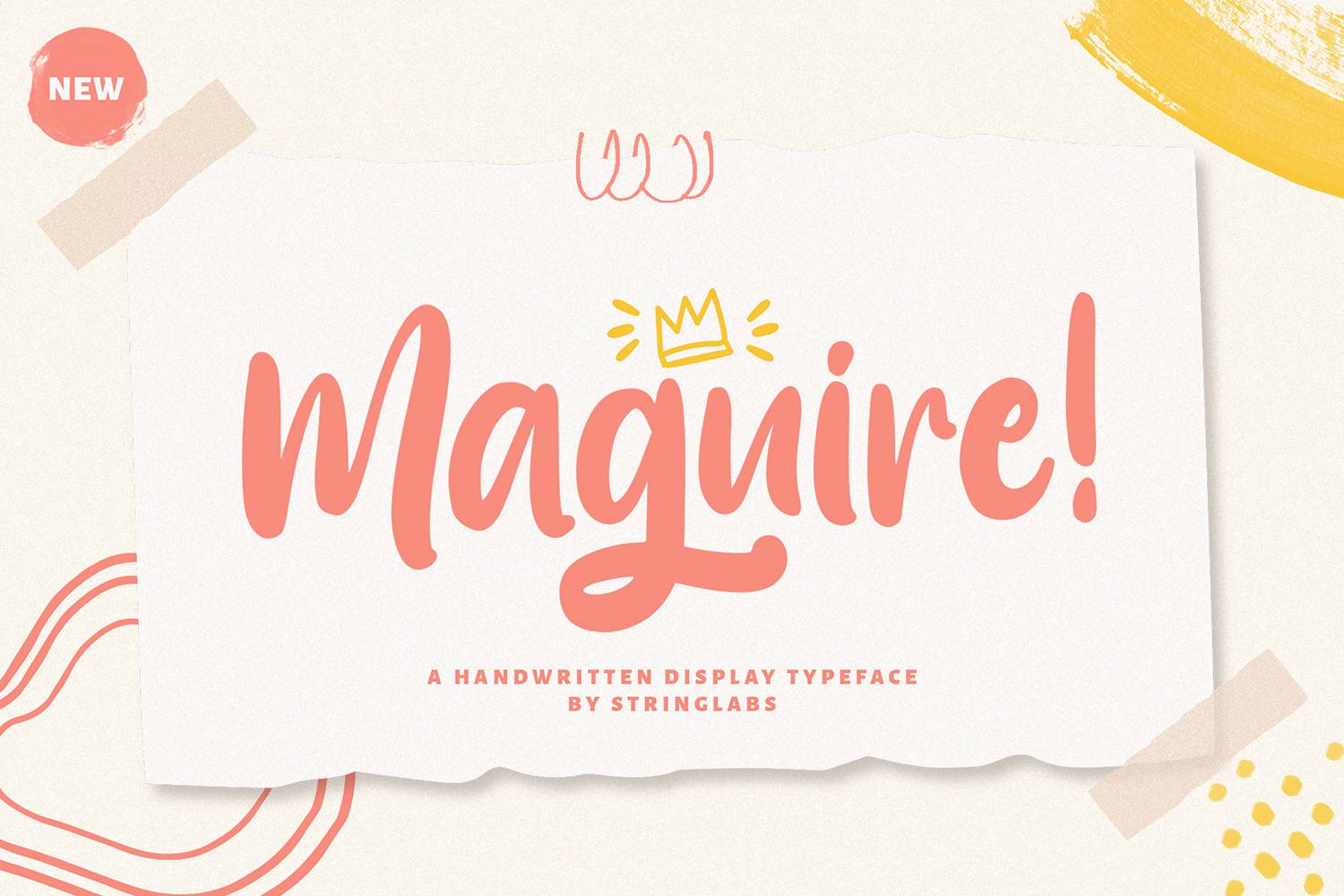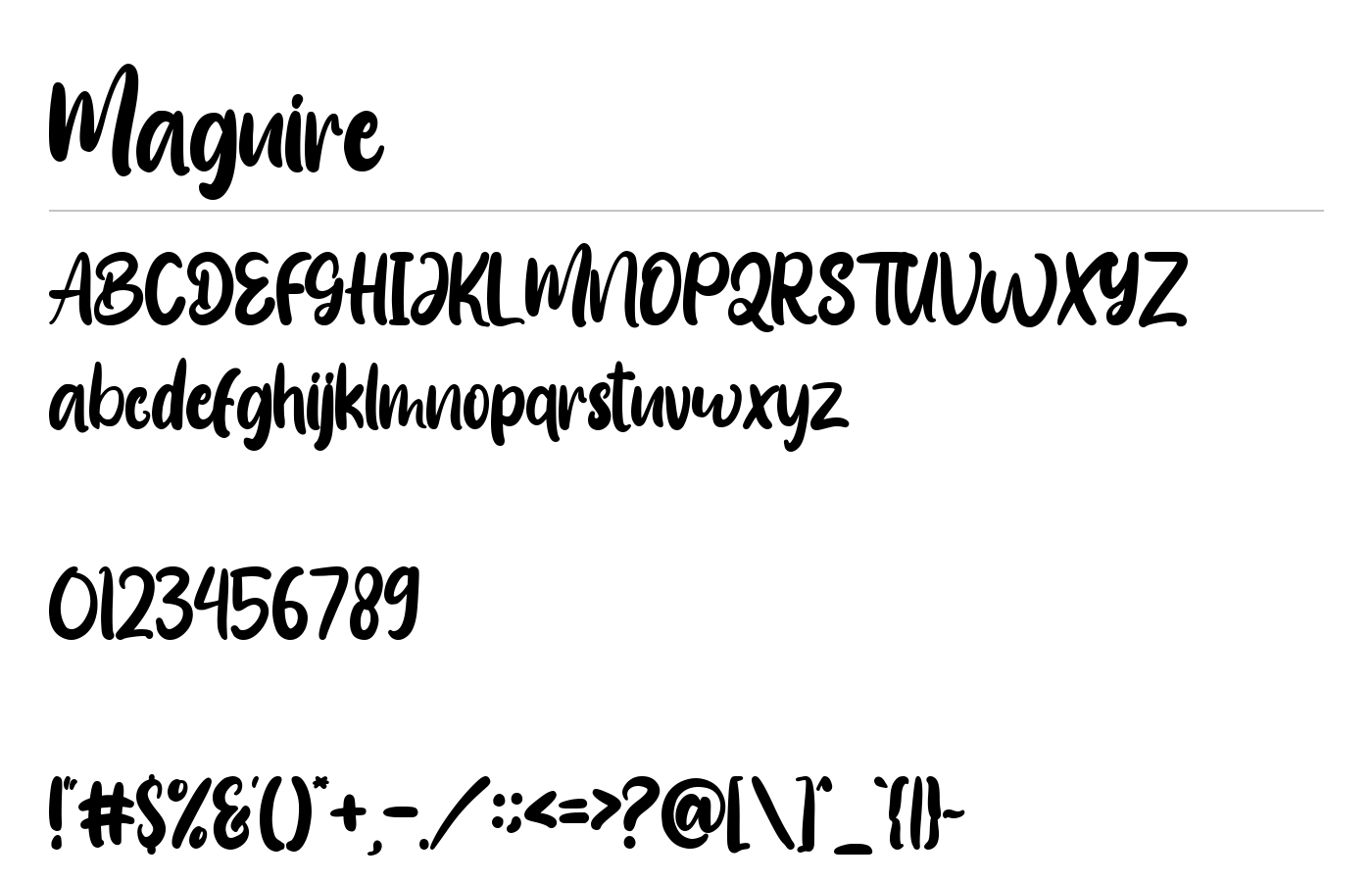
Maguire is a lively and playful script font with a hand-drawn feel, featuring bold yet smooth strokes and a slightly condensed width that gives it a friendly, approachable personality. Its consistent stroke weight and whimsical letterforms make it perfect for creative branding, casual invitations, and eye-catching headlines where a cheerful and informal tone is desired. This font works well in contexts where warmth and personality are key, such as lifestyle brands, greeting cards, and fun editorial designs.
Maguire Font
About Maguire Font